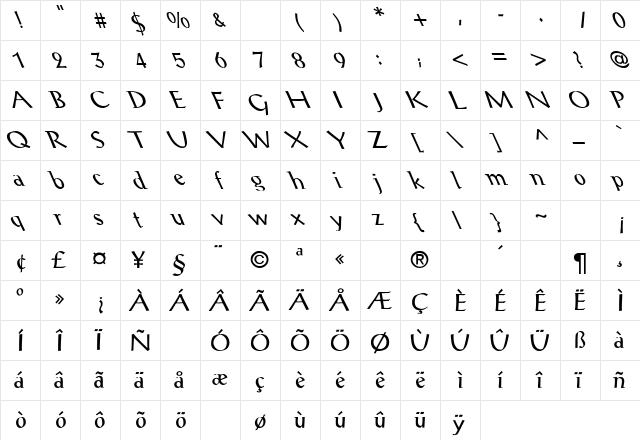
Post Antiqua-Roman Leftified Regular
Design Context for Post Antiqua-Roman Leftified Typeface
Post Antiqua-Roman Leftified is a composed and adaptable typeface that performs quietly and consistently across a wide range of design contexts.
Pro Tip: Use Post Antiqua-Roman Leftified in both headline and body roles to test its range before committing to a single application.